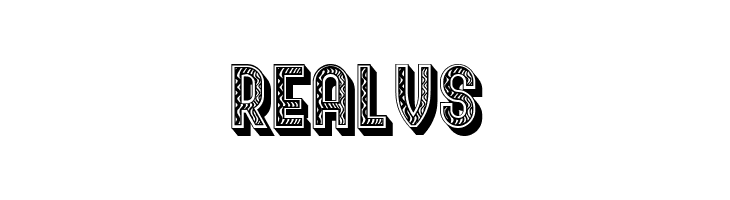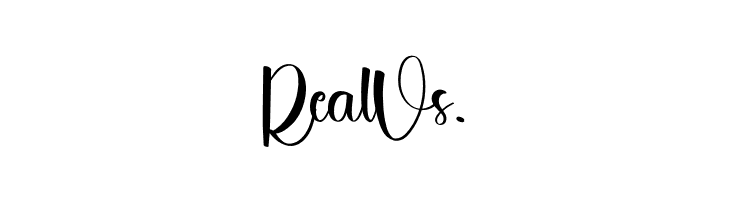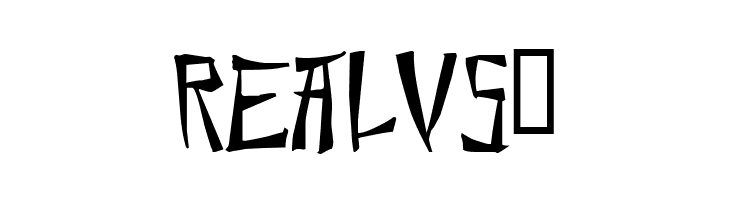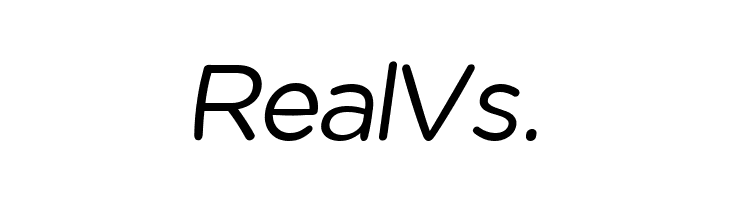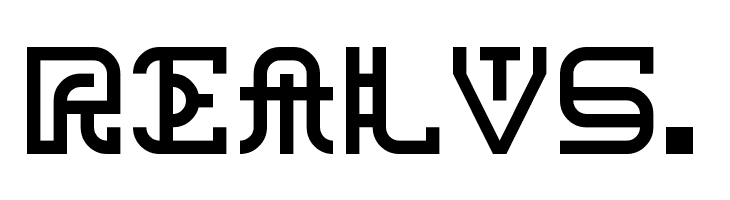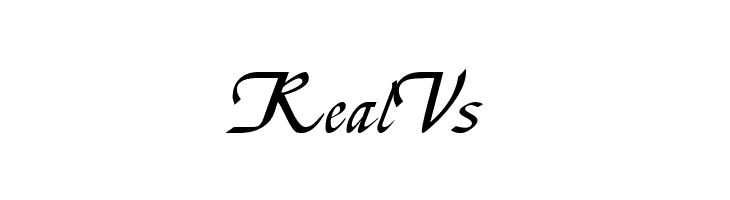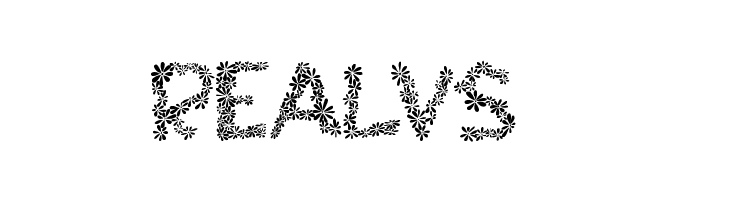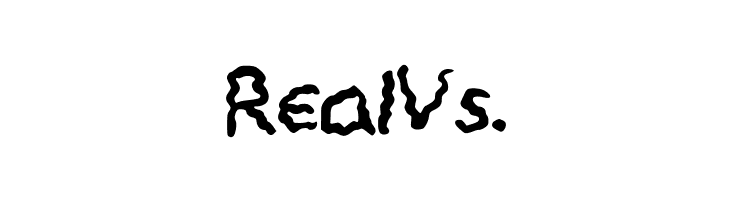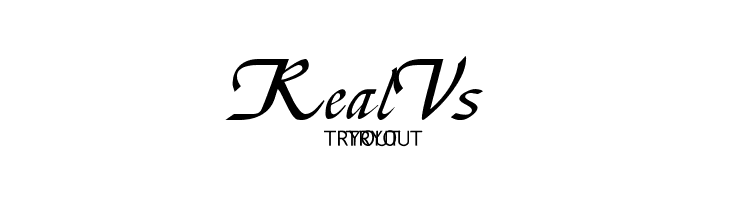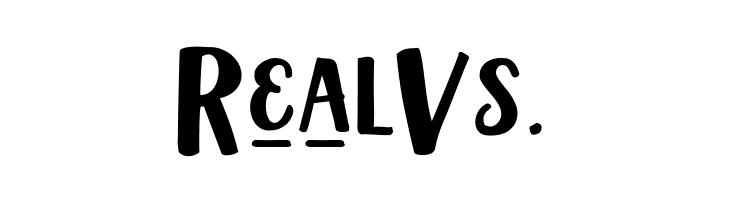
A decorative font with characters made of floral patterns.
A bold, geometric font with a futuristic and industrial design.
A playful and elegant handwritten script font with dynamic curves.
An elegant, flowing script font with a modern twist and medium contrast.
A bold, decorative font with a 3D effect and intricate interior patterns.
A classic, elegant font with a calligraphic influence.
A bold, modern font with characters enclosed in squares, offering a unique geometric style.
An elegant, flowing script font with a calligraphic style.
A classic, elegant cursive font with a calligraphic style.
An elegant cursive font with flowing, calligraphic strokes.
A bold, playful handwritten font with a casual and dynamic style.
An elegant script font with flowing, decorative swashes and loops.
A bold, wavy, hand-drawn style font with an organic, playful appearance.
An elegant, cursive script font with a flowing, handwritten style.
An elegant script font with flowing, high-contrast strokes and ornate flourishes.
Elegant script font with intricate swirls.
An elegant script font with flowing, cursive letterforms and delicate swashes.
A graceful and flowing script font with elegant, fluid strokes.
A refined, cursive script font with elegant, flowing lines and an italicized style.
A delicate and flowing script font with elegant, fluid letterforms.
A modern, elegant handwritten font with flowing, cursive letterforms.
A modern, geometric font with clean lines and a futuristic style.
A playful, handwritten-style font with a whimsical and casual vibe.
A bold, geometric font with angular letterforms and a modern, industrial style.
A bold, angular font with sharp lines and a distinctive, edgy style.
A modern, clean sans-serif font with a slightly condensed style.
A bold, modern sans-serif font with strong, thick strokes.